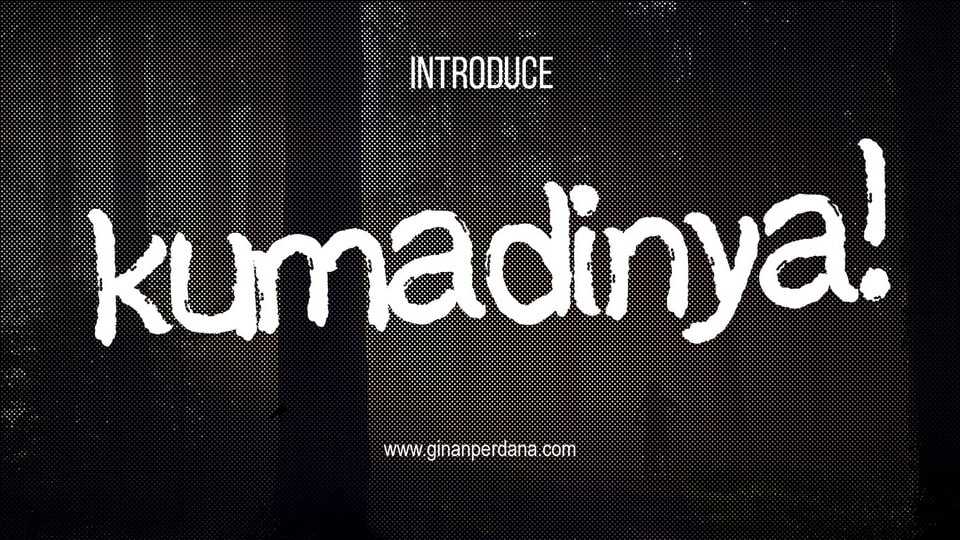
Download Kumadinya font, a cool and quirky brushed display typeface. No matter the topic, Kumadinya font will be an incredibly asset and has the potential to elevate any creation.
Designer: Ginan Perdana